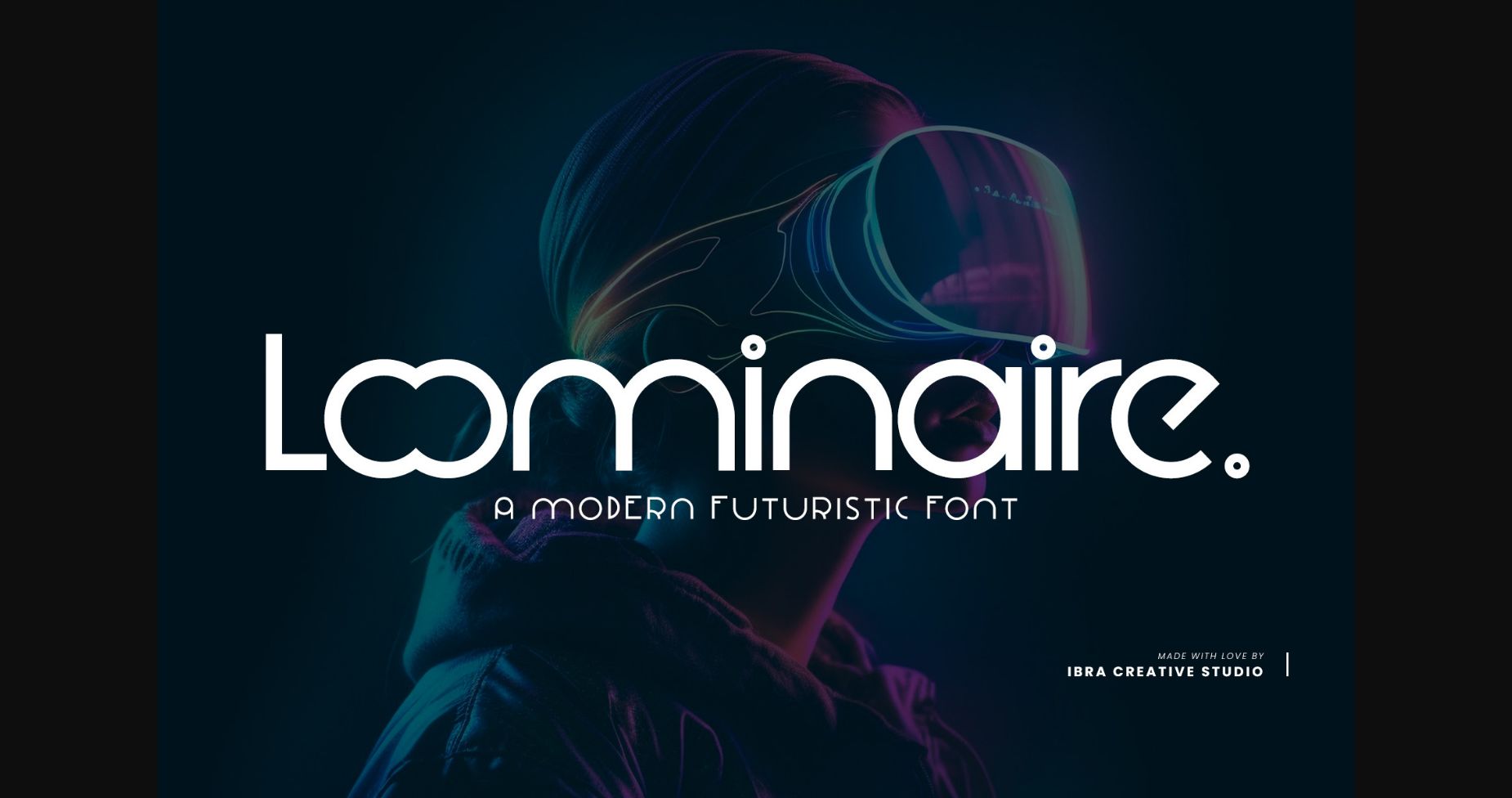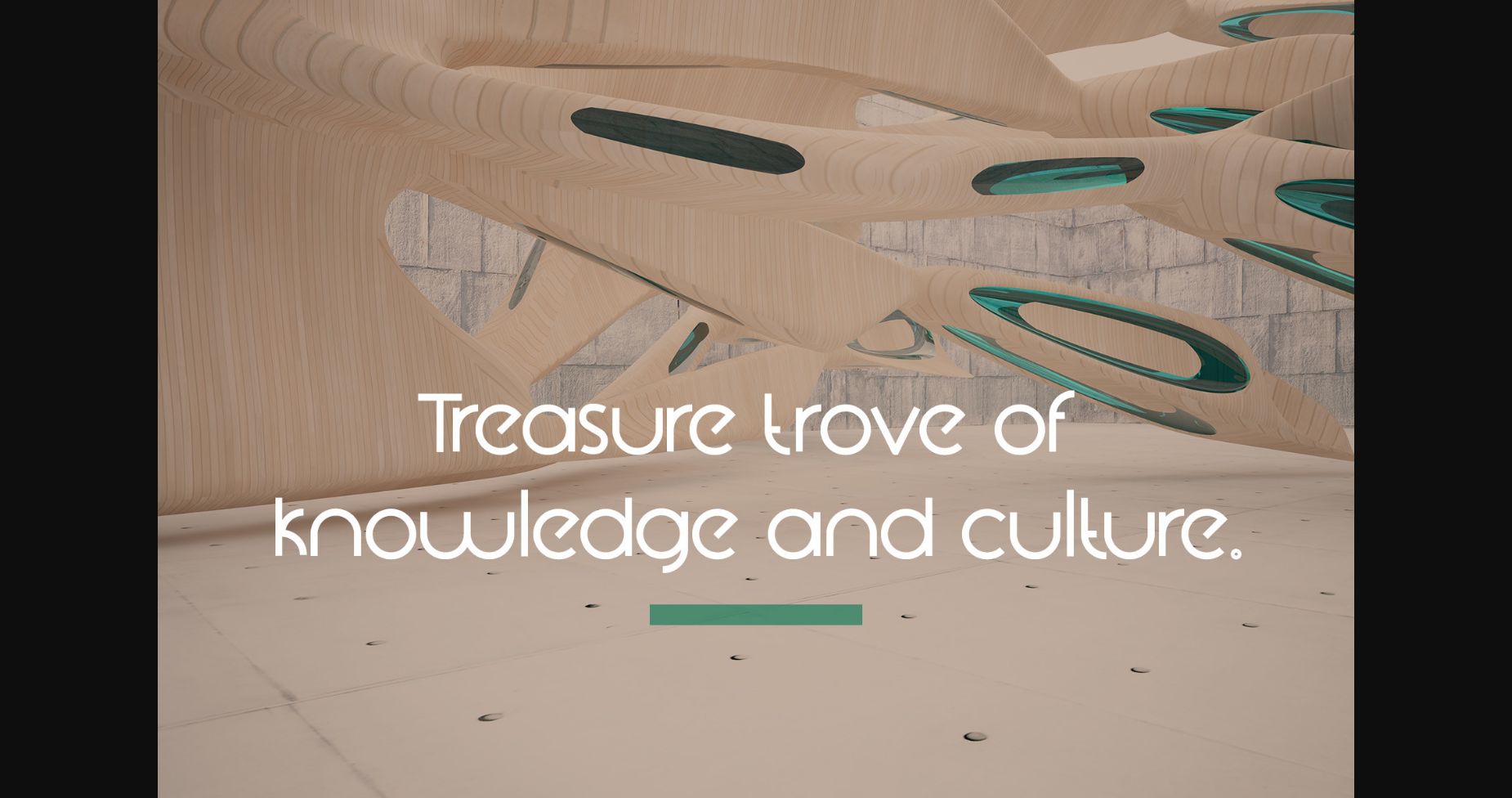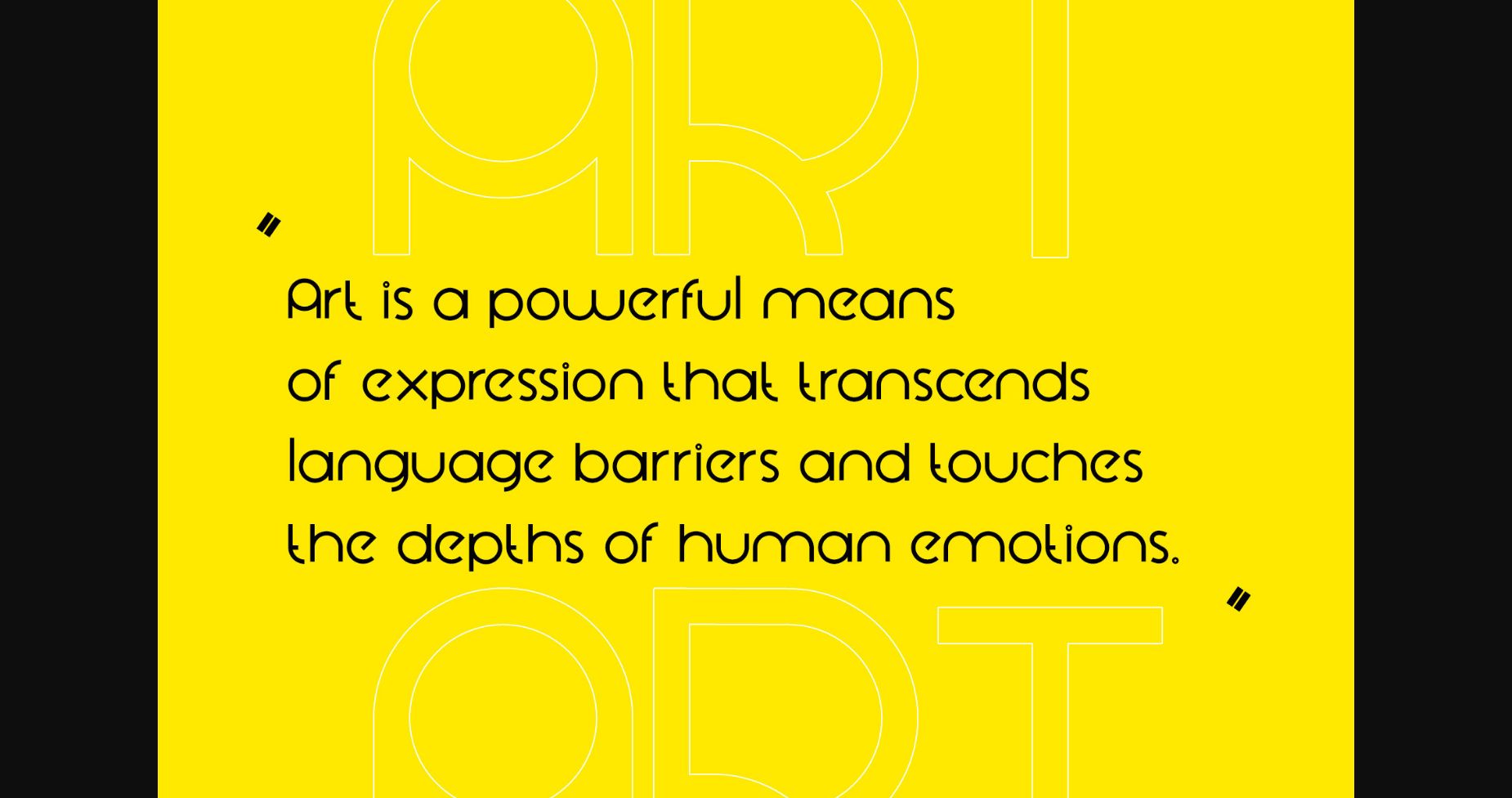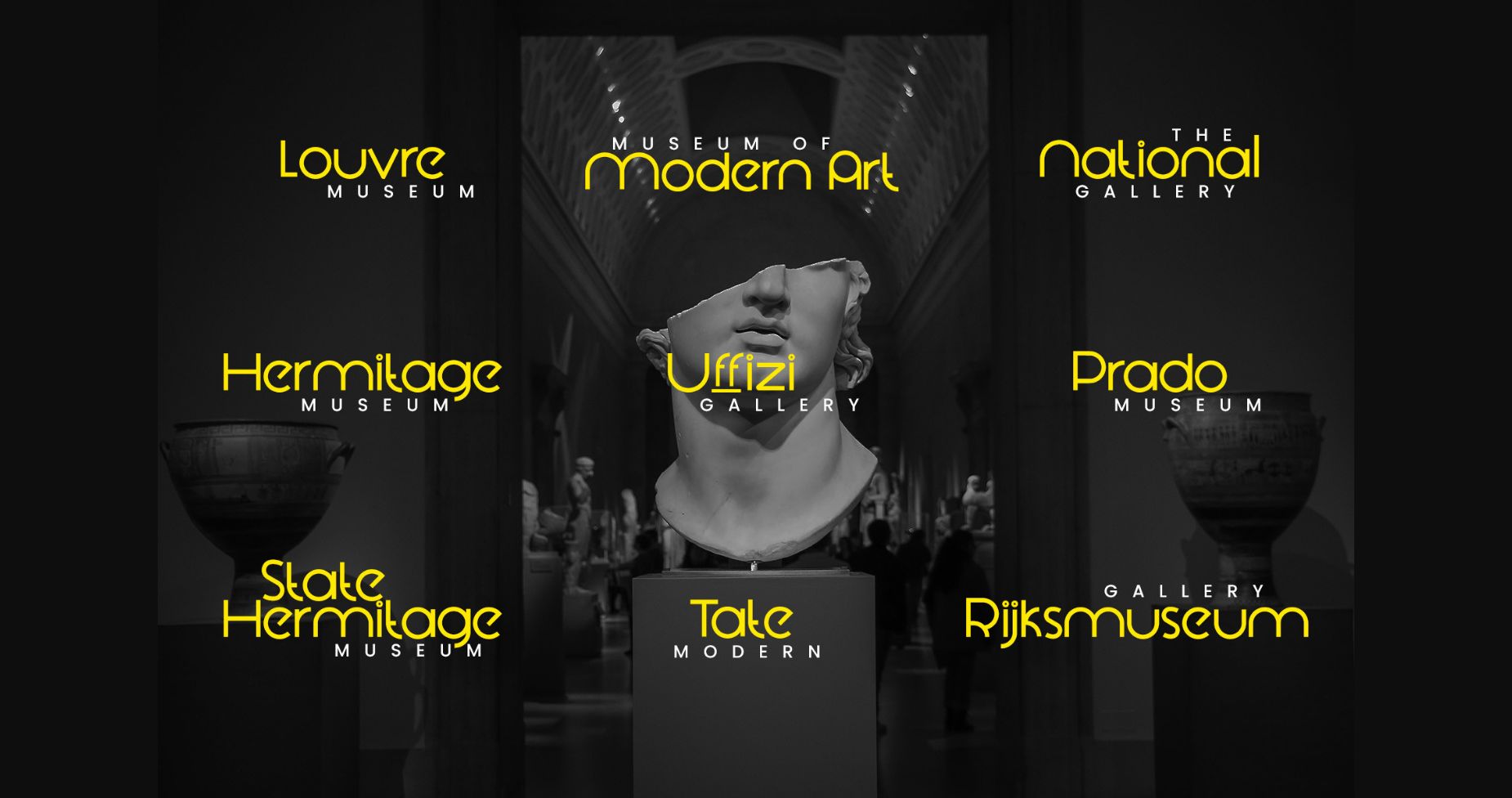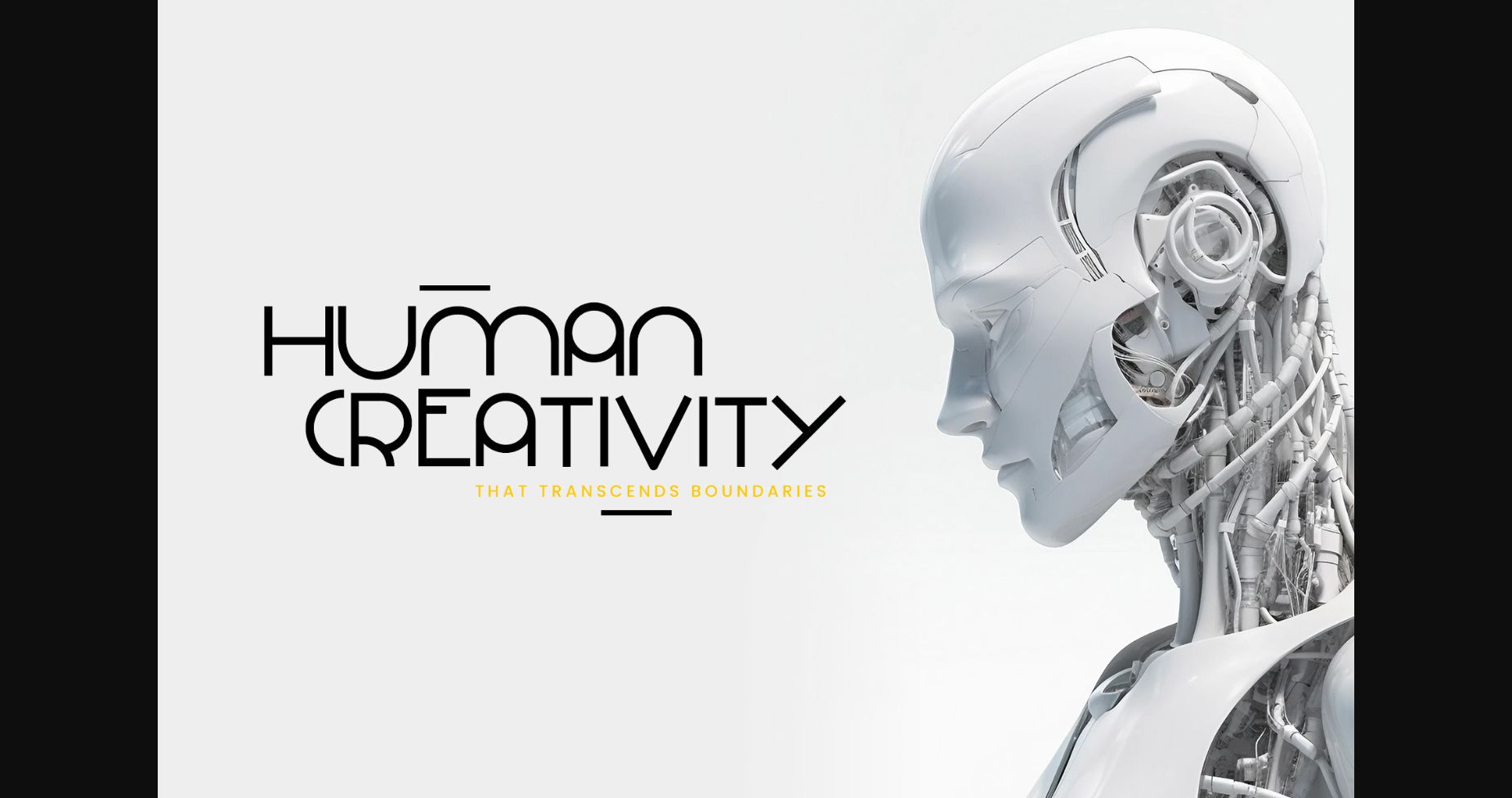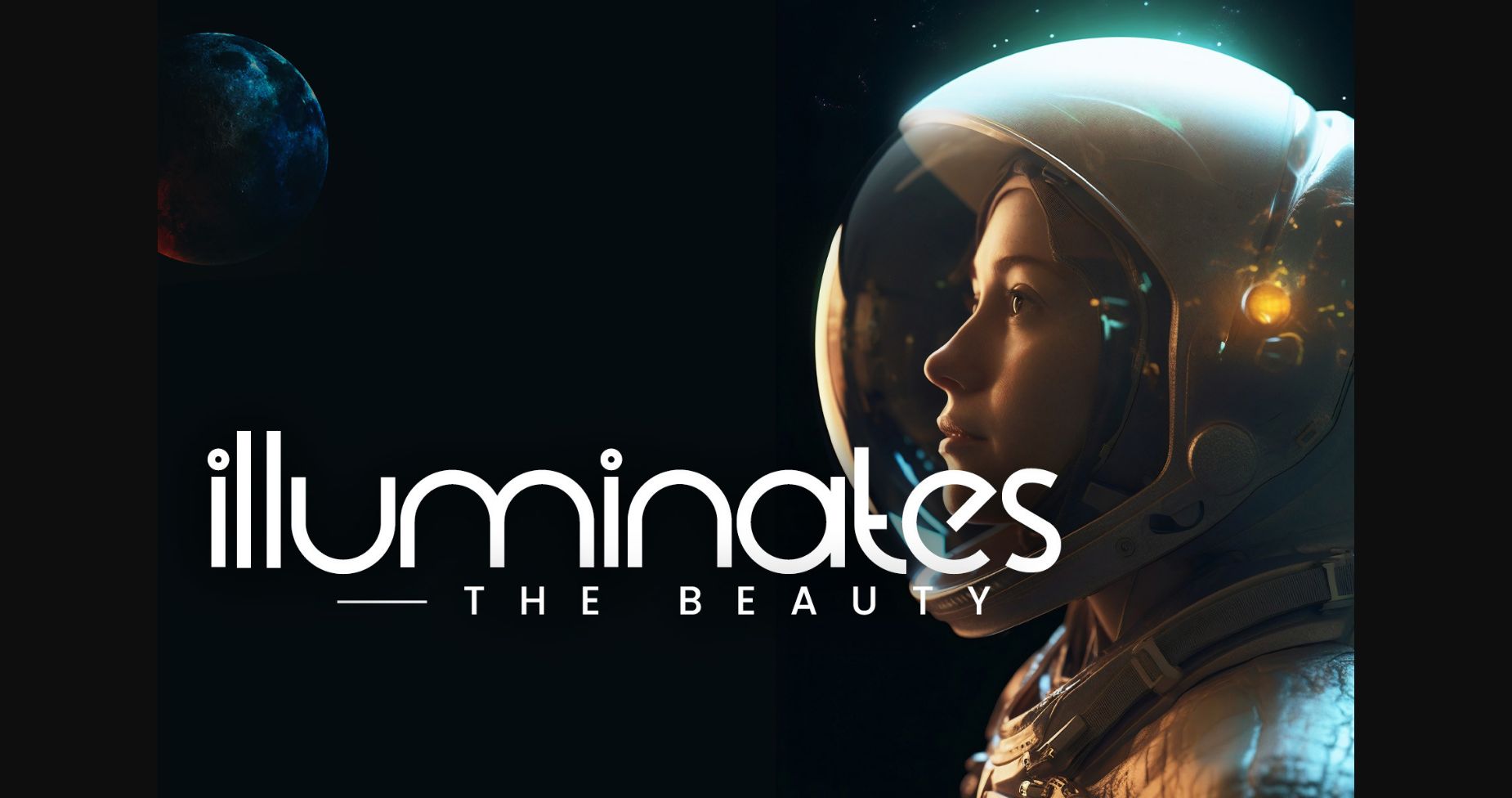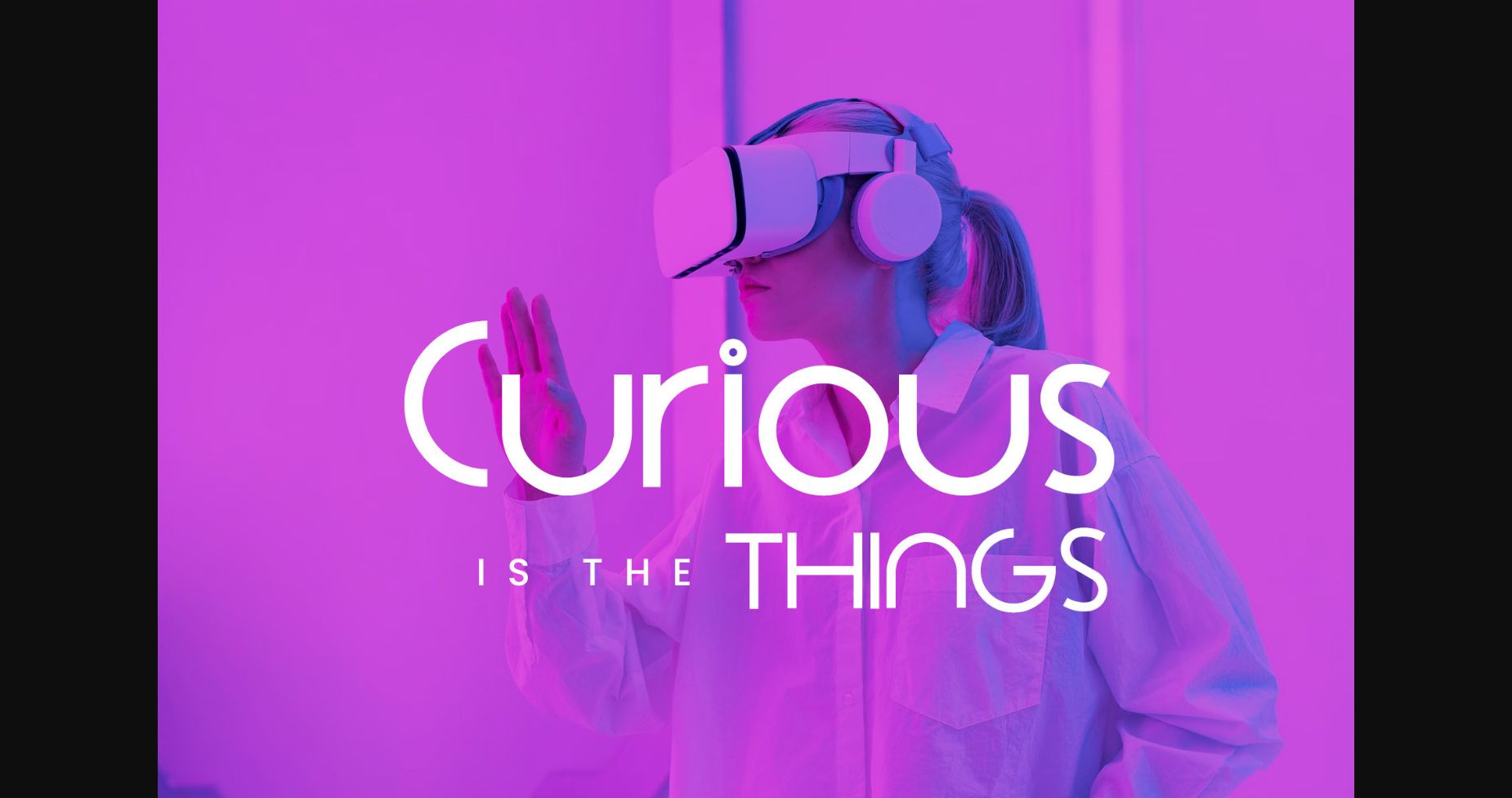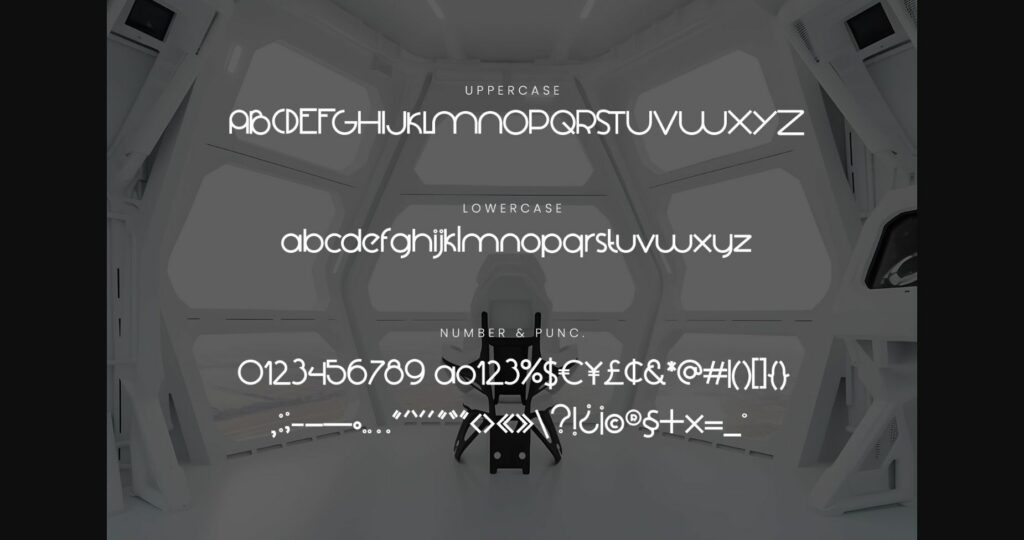
About Loominaire Font
Introducing Loominaire – A Modern Futuristic Font! Step into the future with Loominaire, a captivating and cutting-edge font that embodies the essence of modernity and innovation. This font is perfect for those seeking to add a touch of modernity to their branding, advertisements, websites, posters, and more. Captivate your audience with Loominaire’s versatility, whether you’re creating a high-tech logo, a sci-fi movie poster, or a forward-thinking website interface.